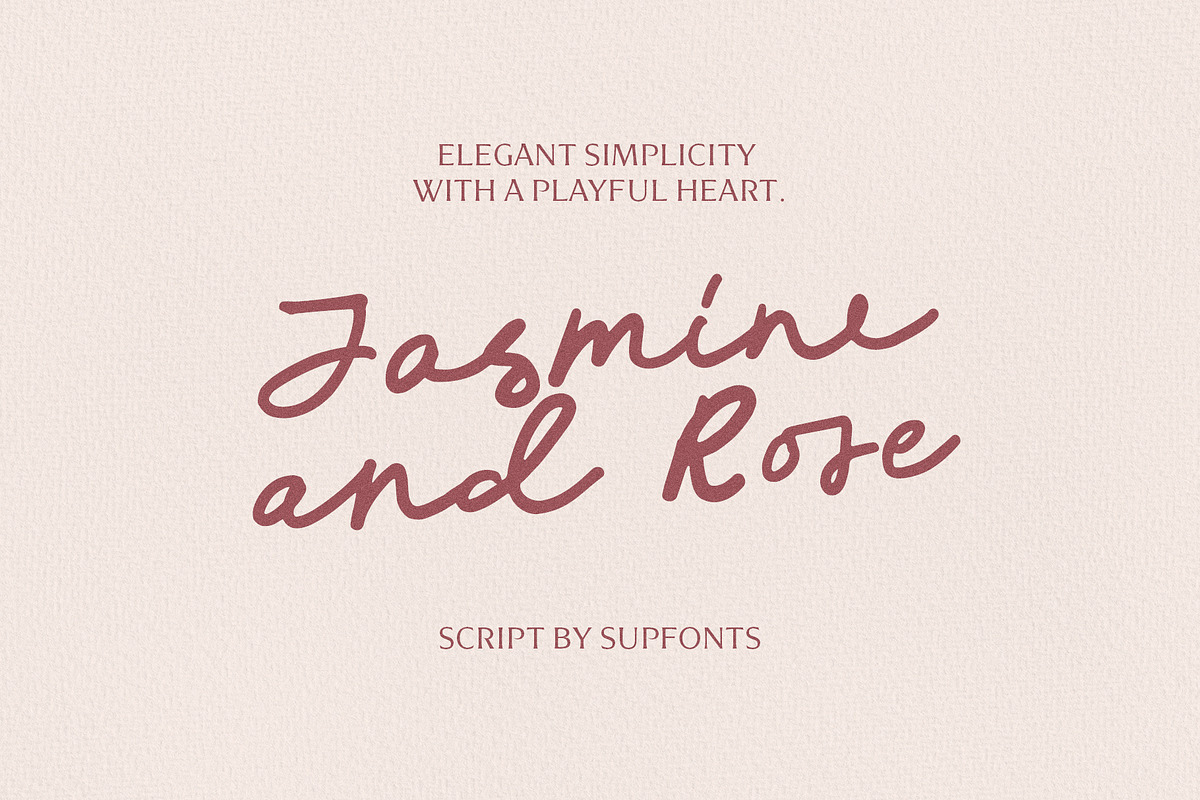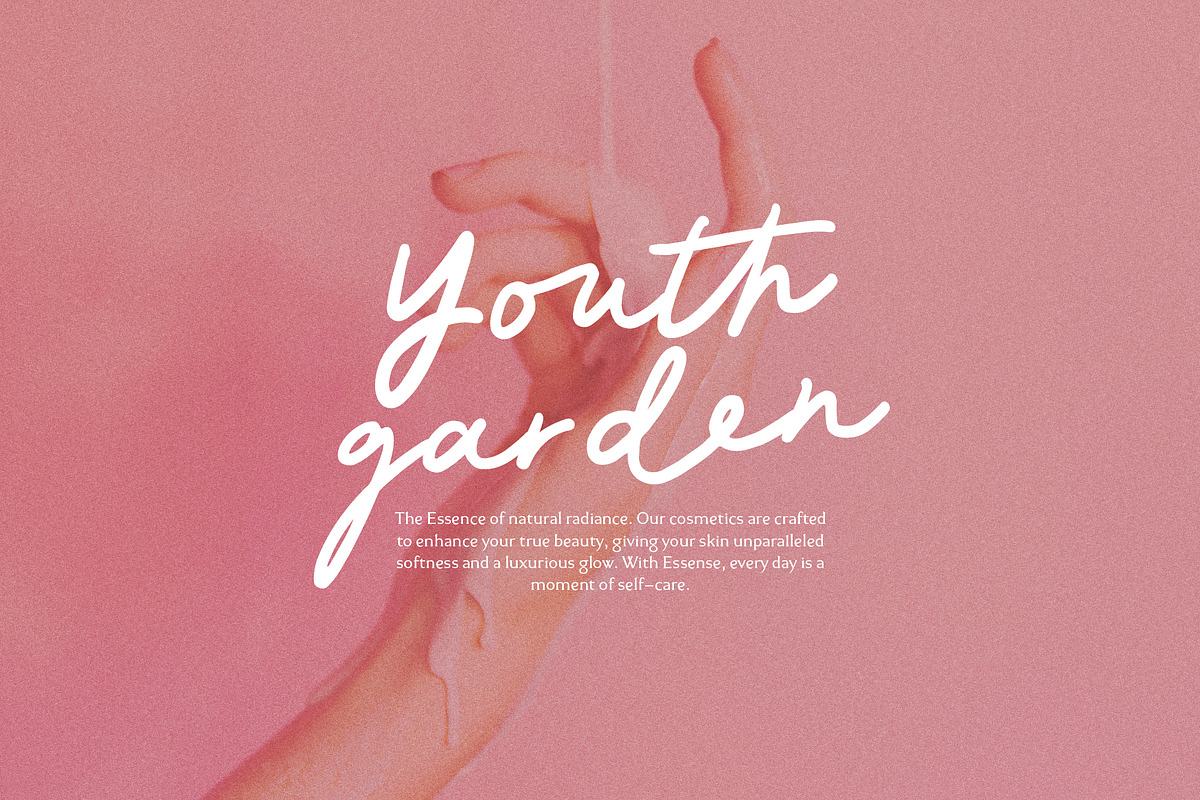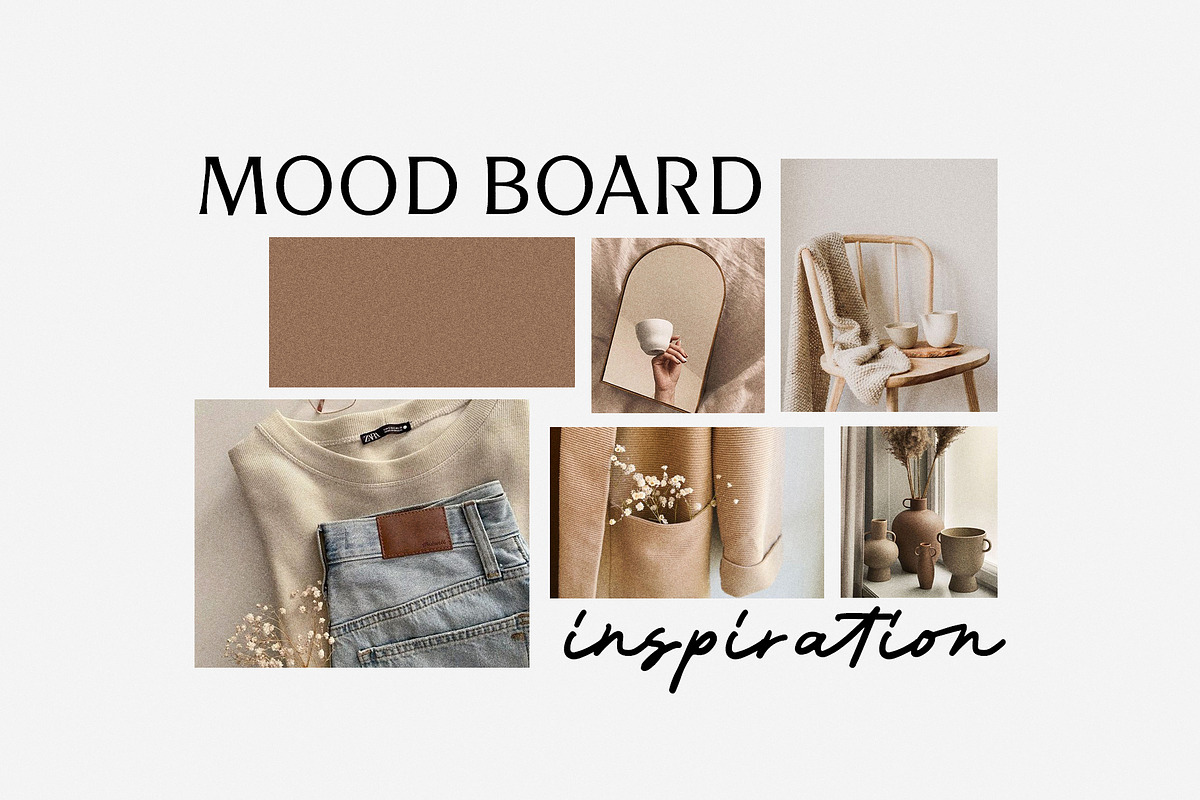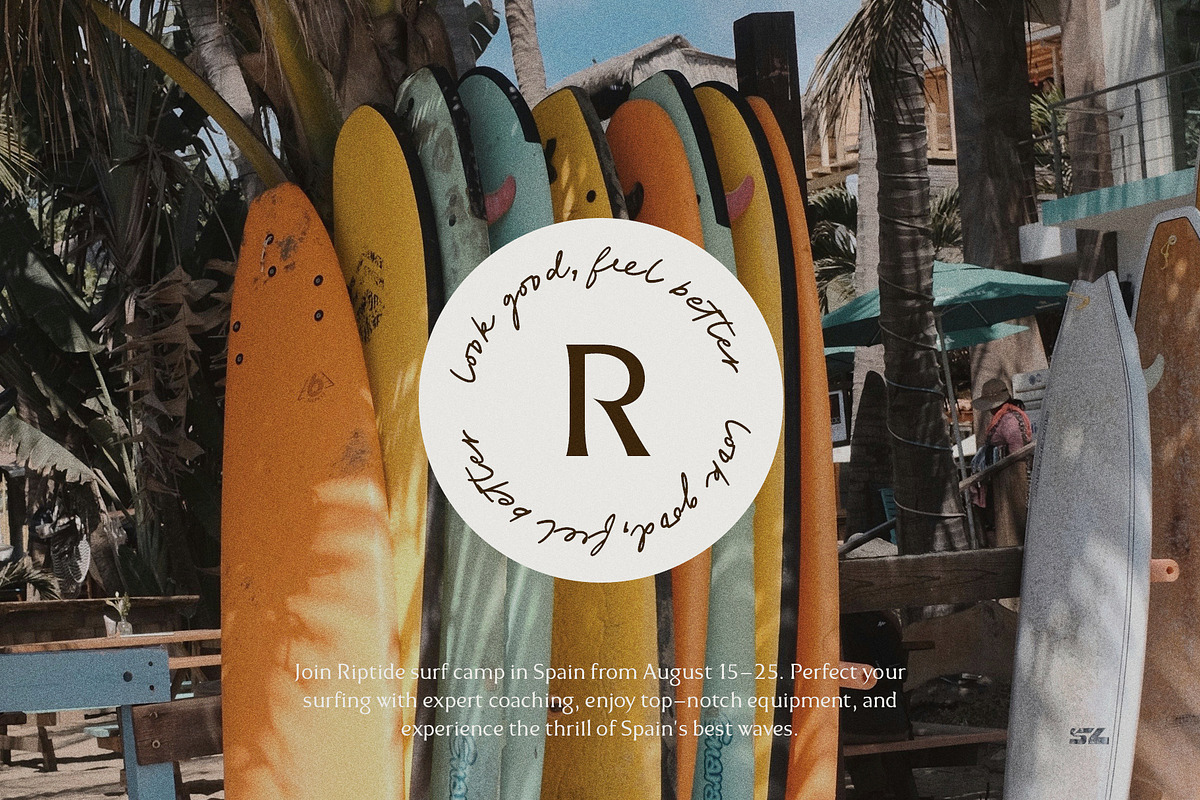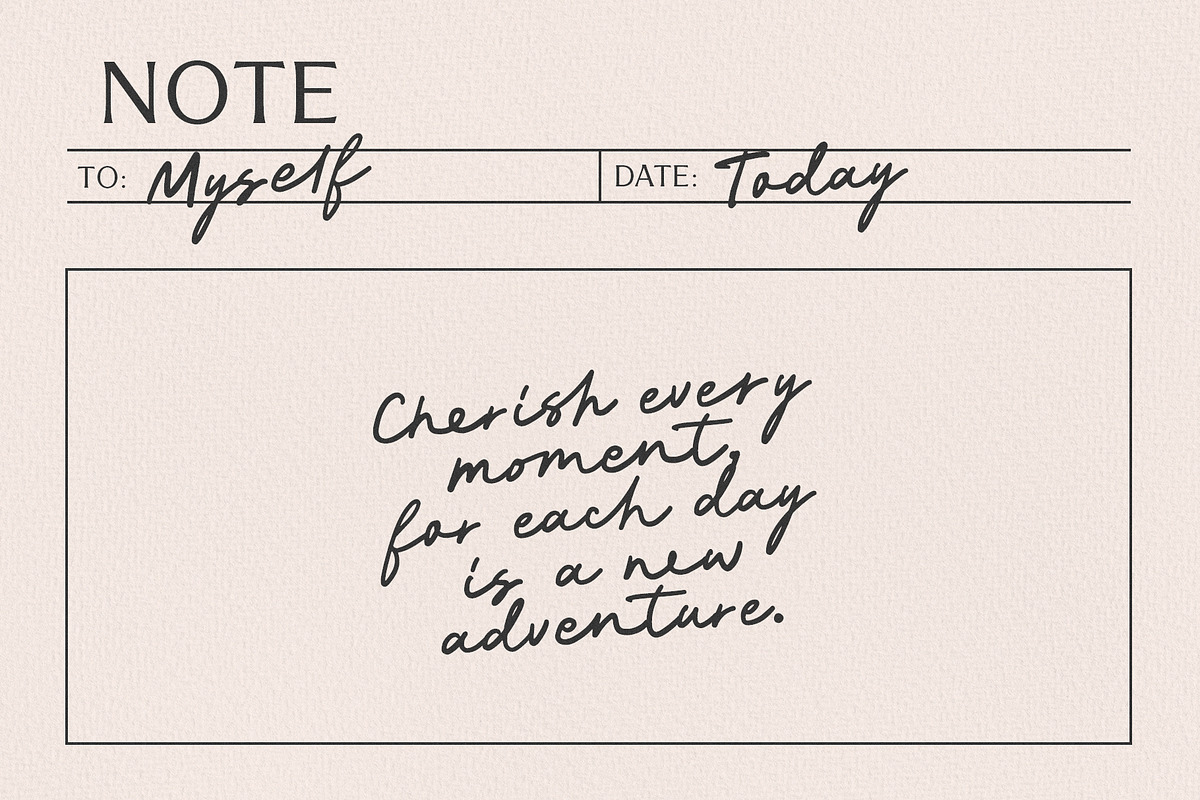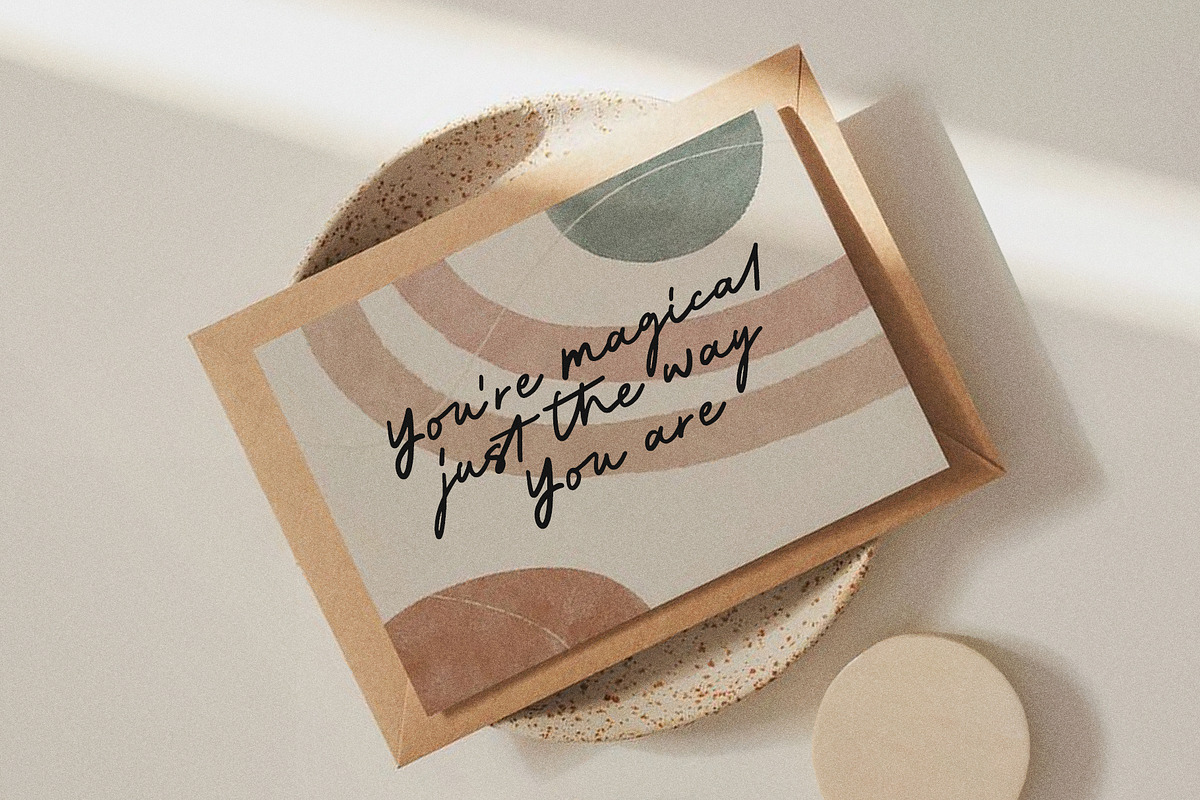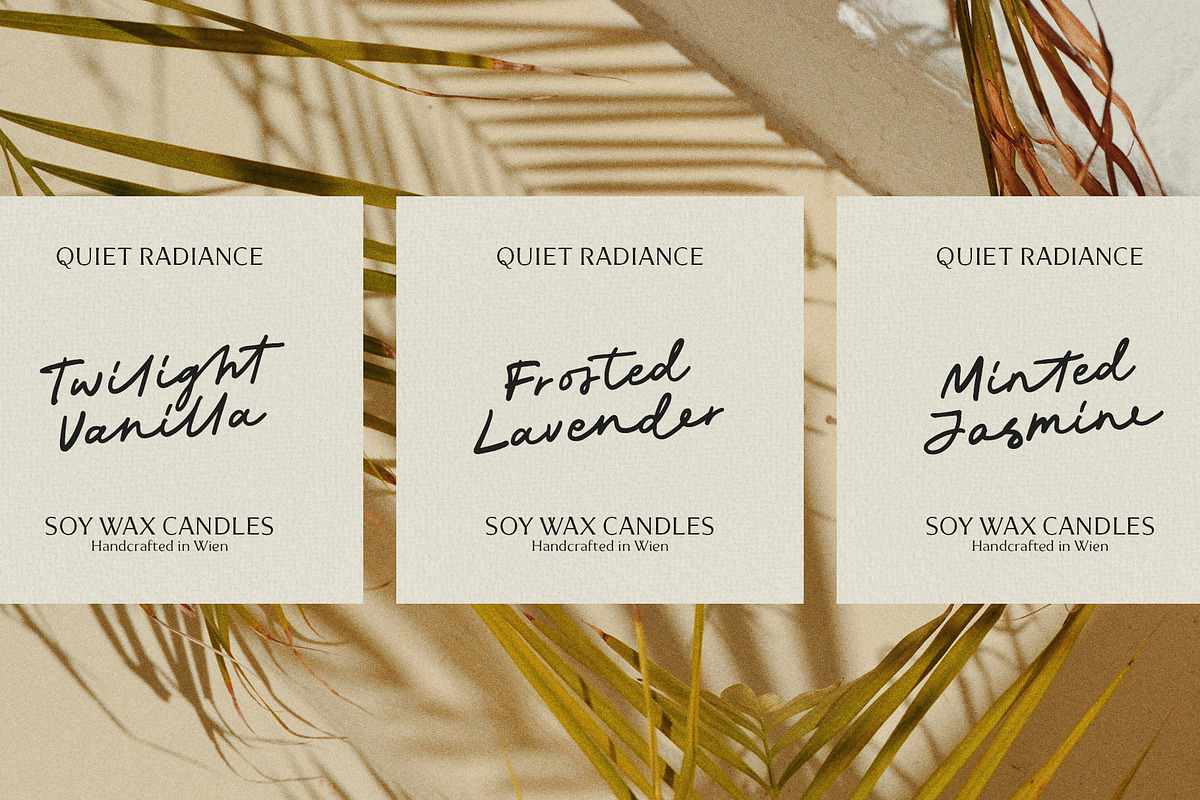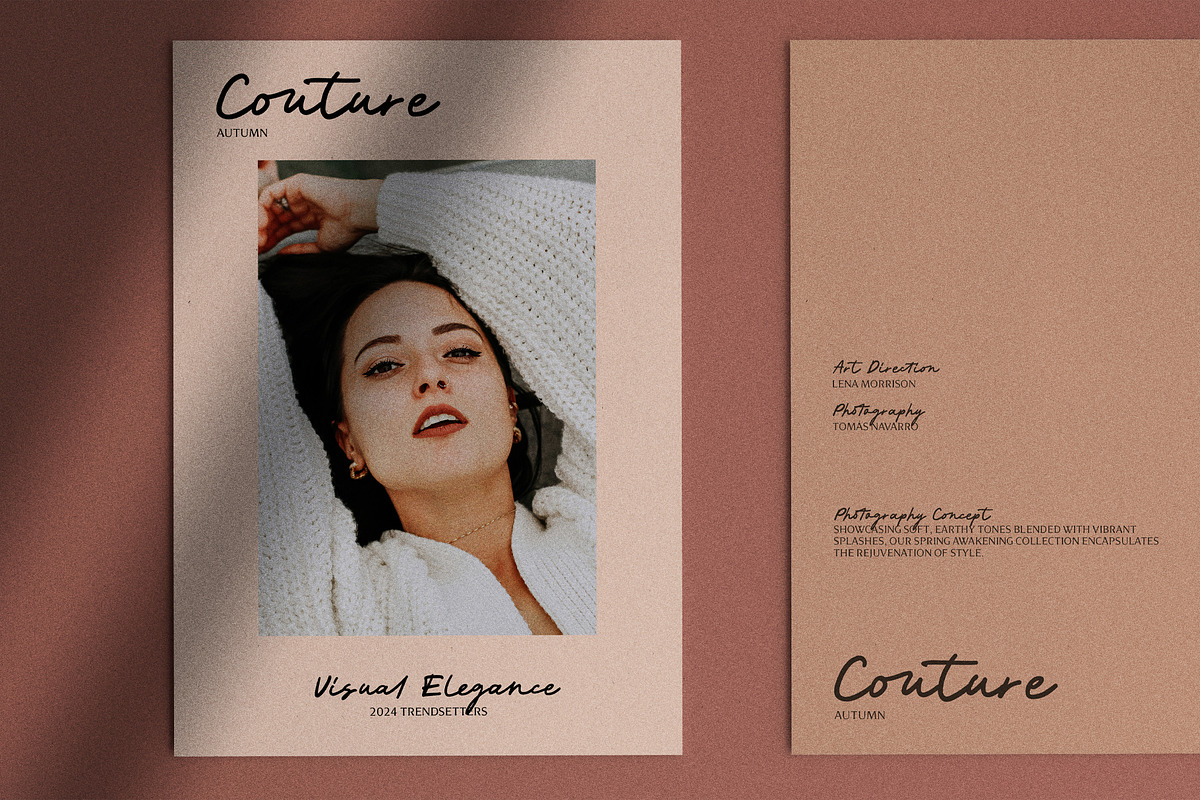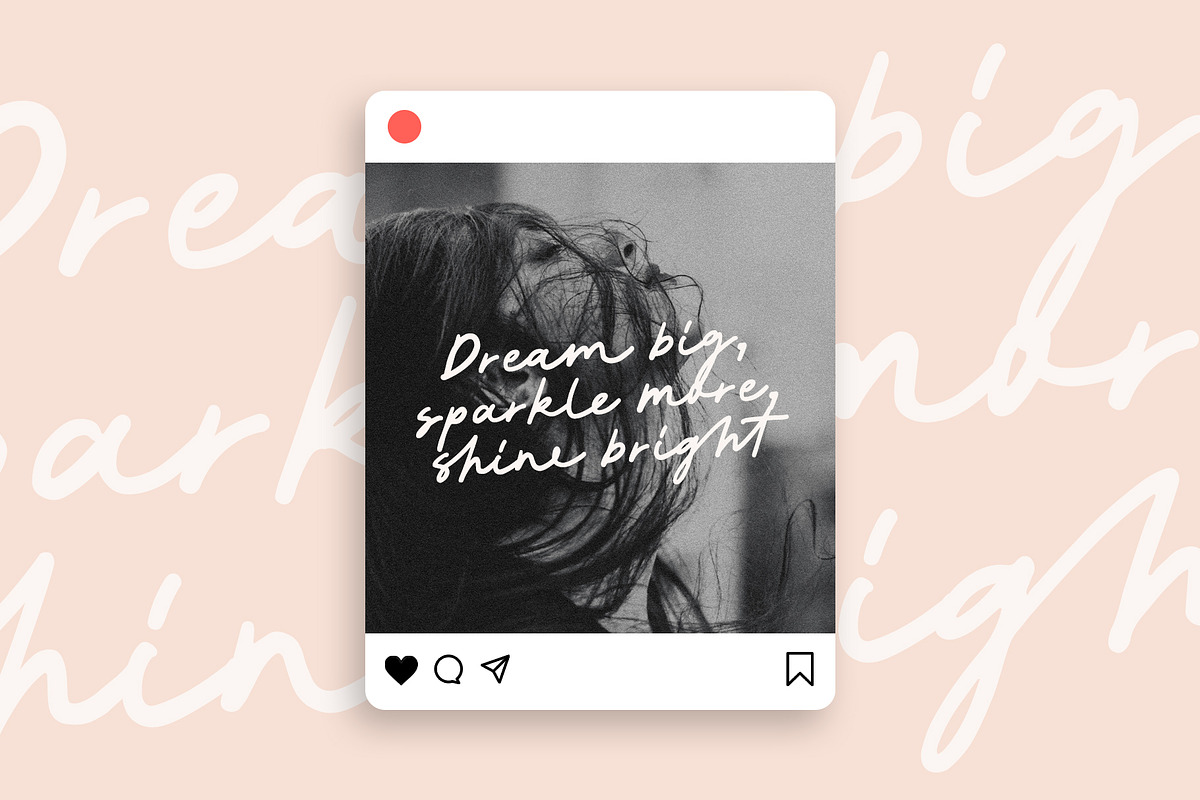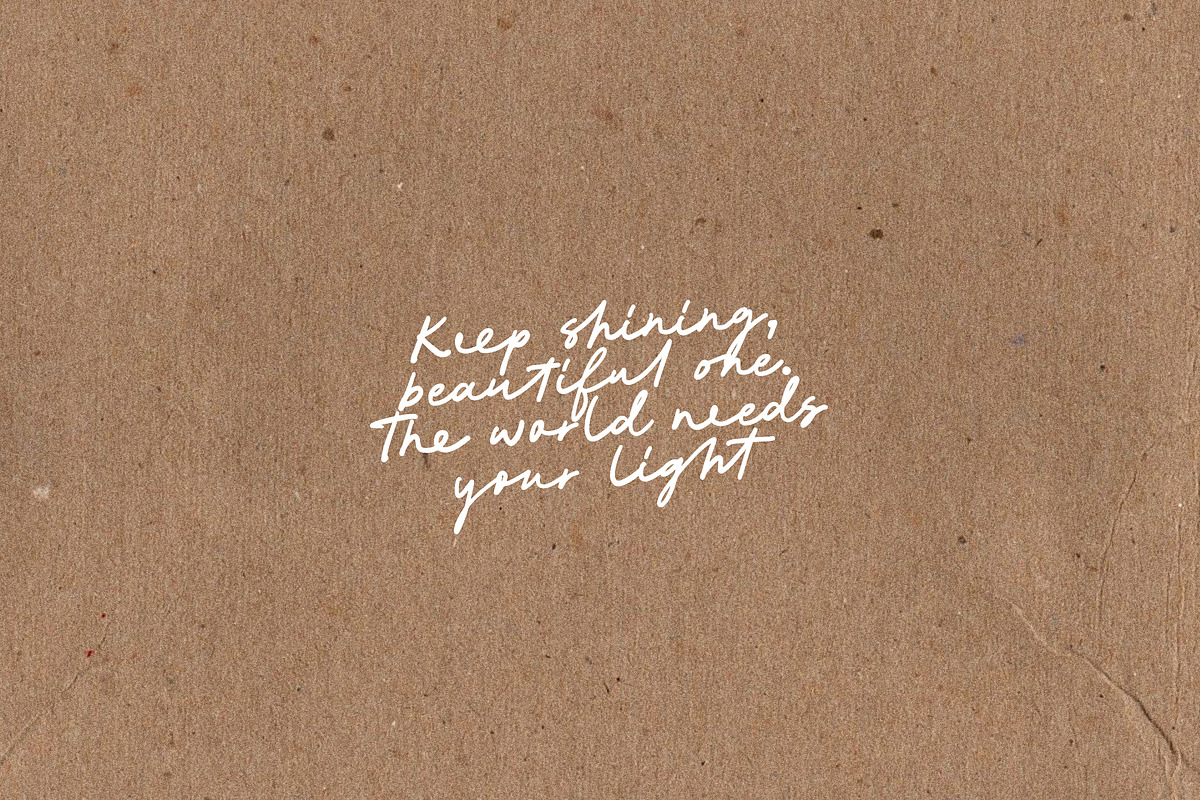
Jasmine And Rose script
Jasmine and Rose - a beautifully handcrafted font that feels like personal handwriting. Loaded with elegant ligatures, this font is perfect for adding a unique, handwritten touch to any design. Ideal for capturing a sense of authenticity and warmth in your projects.
- Full Set of standard alphabet and punctuation
- Handwritten ligatures
- Multilingual Characters AÁĂÂÄÀĀĄÅÃÆBCĆČÇĊDÐĎĐEÉĚÊËĖÈĒĘẼFGĞĢĠḠHĦIIJÍÎÏİÌĪĮĨJKĶLĹĽĻŁMNŃŇŅÑ OÓÔÖÒŐŌØÕŒPÞQRŔŘŖSŚŠŞȘẞTŤŢȚUÚÛÜÙŰŪŲŮŨVWẂŴẄẀXYÝŶŸỲỸZŹŽŻ aáăâäàāąåãæbcćčçċdðďđeéěêëėèēęẽfgğģġḡhħiıíîïìijīįĩjȷkķlĺľļłmnńňņñoóôöòőōøõœpþ qrŕřŗsśšşșßtťţțuúûüùűūųůũvwẃŵẅẁxyýŷÿỳỹzźžż